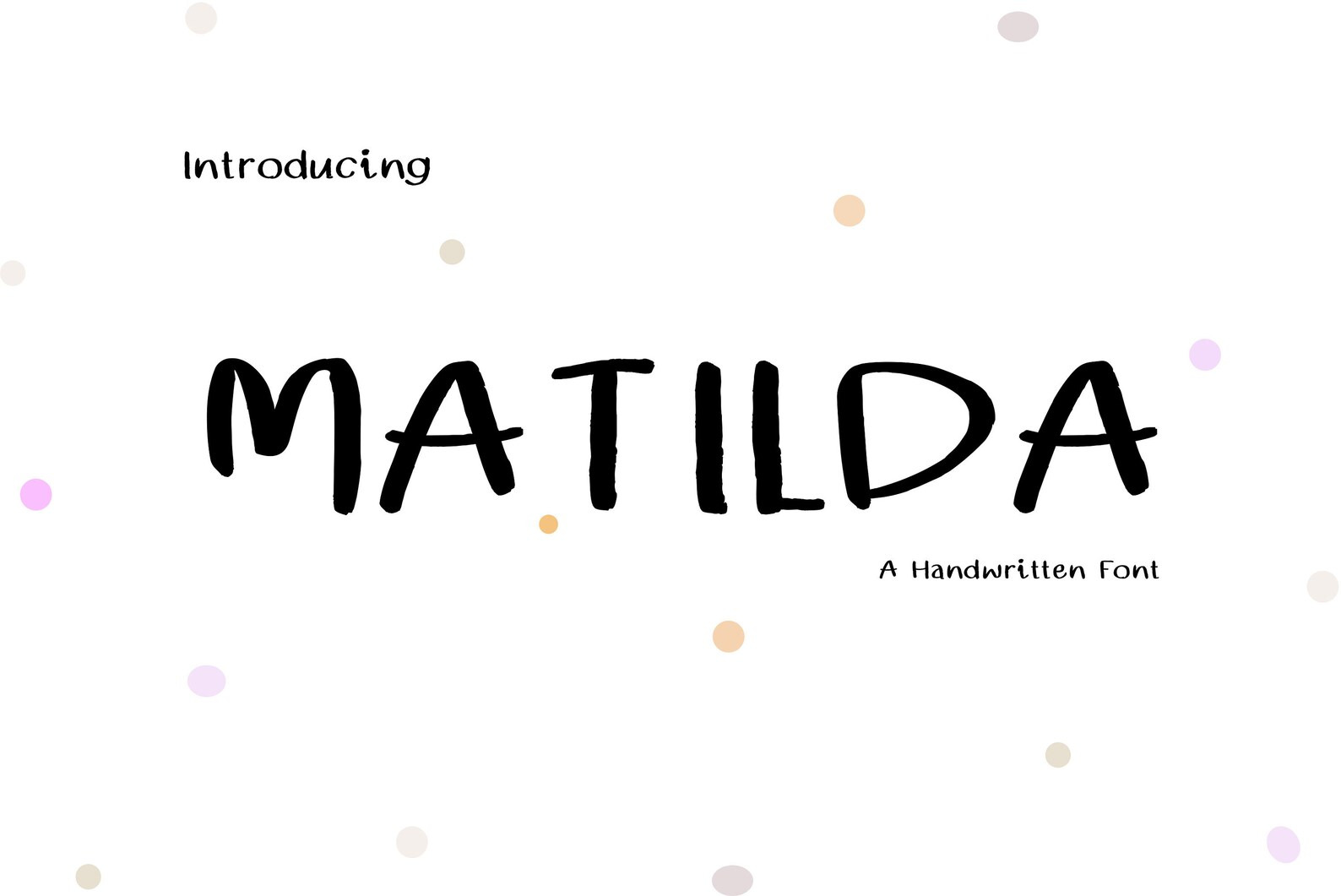
Matilda Font
Description A handwritten font Available to you in a TTF and OTF format
This font a perfect for many project : greeting cards, wedding invitation, posters, magazines, book covers, stationery and more.